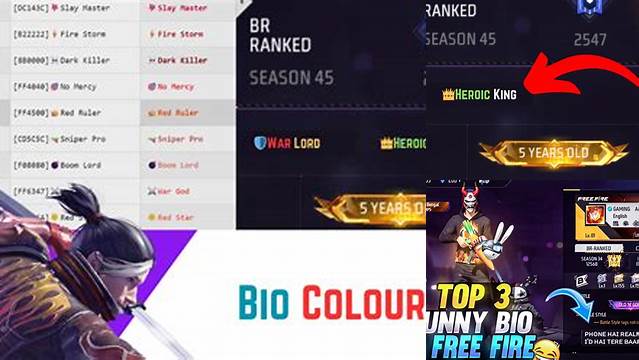
Cool Fonts For Free Fire Bio: Stand Out Now!
Looking to spice up your Free Fire bio with some cool fonts? You've come to the right place! Your Free Fire bio is like your digital handshake – it's the first thing other players see, and it's your chance to make a memorable impression. Using unique fonts is a fantastic way to stand out from the crowd and show off your personality. It’s all about making your profile as eye-catching and distinctive as possible. Forget the boring default text; let’s dive into how you can jazz things up and make your bio truly yours.
Why Use Stylish Fonts in Your Free Fire Bio?
Let's face it, in a game as popular as Free Fire, standing out is key. Your bio is prime real estate for expressing yourself. Using stylish fonts can help you:
- Grab Attention: A unique font instantly makes your bio more noticeable. Think of it as the digital equivalent of wearing a flashy outfit.
- Showcase Personality: Different fonts can convey different vibes. Whether you're going for bold and aggressive or cool and casual, the right font can communicate your style.
- Make a Statement: Your bio is a mini billboard. Use it to share your interests, affiliations, or even a witty quote, all amplified by a killer font.
- Be Memorable: In a sea of similar names and profiles, a distinctive font helps you stick in people's minds. They'll remember you, the one with the awesome bio.
Finding the Perfect Font for Your Free Fire Bio
So, where do you find these amazing fonts? The good news is, you don't need to be a tech wizard or download any sketchy software. There are plenty of user-friendly online tools that do the trick. Here are some popular options:
- Font Generators: Websites like LingoJam, Cool Font, and FontGet offer a wide variety of fonts that you can copy and paste directly into your Free Fire bio. Simply type your text, choose your font, and copy the result.
- Mobile Apps: If you prefer using your phone, apps like Stylish Text and Fonts for Instagram (don't let the name fool you, they work for Free Fire too!) provide similar functionality.
These tools work by using Unicode characters, which are symbols that look like different fonts but are actually interpreted as text by Free Fire. It's a clever workaround that allows you to bypass the game's font restrictions.
Step-by-Step Guide to Using Font Generators
Using these font generators is a breeze. Here’s a simple guide to get you started:
- Head to a Font Generator Website: Open your web browser and go to a site like LingoJam or Cool Font.
- Type Your Bio Text: In the input box, type the text you want to appear in your Free Fire bio. This could be your name, a short message, or anything you want to share.
- Choose Your Font: Scroll through the options until you find a font that catches your eye. Most generators offer a live preview, so you can see how your text will look.
- Copy the Generated Text: Once you've found the perfect font, copy the generated text to your clipboard.
- Paste into Your Free Fire Bio: Open Free Fire, go to your profile, and paste the copied text into your bio. Voilà ! Your bio now has a stylish new font.
With so many fonts to choose from, picking the right one can feel overwhelming. Here are some tips to help you narrow it down:
- Consider Your Style: What kind of image do you want to project? A bold, blocky font might be perfect if you're a competitive player, while a curvy, elegant font could suit a more relaxed style.
- Readability is Key: While some fonts look cool, they can be hard to read. Choose a font that's easy on the eyes, especially on smaller screens.
- Test It Out: Before committing, test the font on your own profile to see how it looks in the game. What looks good on the generator might not translate perfectly to Free Fire.
- Mix and Match: Don't be afraid to use multiple fonts! You can use one font for your name and another for your message to create a unique and eye-catching bio.
Examples of Cool Fonts for Free Fire Bio
Need some inspiration? Here are a few popular font styles you can try:
- Cursive Fonts: These fonts add a touch of elegance and sophistication to your bio. They're perfect for players who want to project a refined image.
- Gothic Fonts: If you're going for a darker, more edgy look, gothic fonts are a great choice. They're bold, dramatic, and sure to grab attention.
- Pixel Fonts: These fonts have a retro, arcade-game vibe. They're perfect for players who grew up with classic video games.
- Bubble Fonts: Bubble fonts are fun, playful, and perfect for players who don't take themselves too seriously.
- Bold Fonts: Sometimes, simple is best. A bold font can make your name or message stand out without being too flashy.
Adding Symbols and Emojis to Your Free Fire Bio
Fonts are just the beginning! You can take your Free Fire bio to the next level by adding symbols and emojis. These can add visual interest and help you express yourself even further.
Your Free Fire bio is your chance to shine. By using stylish fonts, symbols, and emojis, you can create a profile that's uniquely you. So go ahead, experiment with different styles, and have fun with it! With a little creativity, you can make your mark in the world of Free Fire.
So, what are you waiting for, guys? Go out there and create an awesome bio that reflects your personality and style. Let your bio be a testament to your individuality and make you stand out in the Free Fire universe. Show them who you are with a bio that's as unique and amazing as you are!